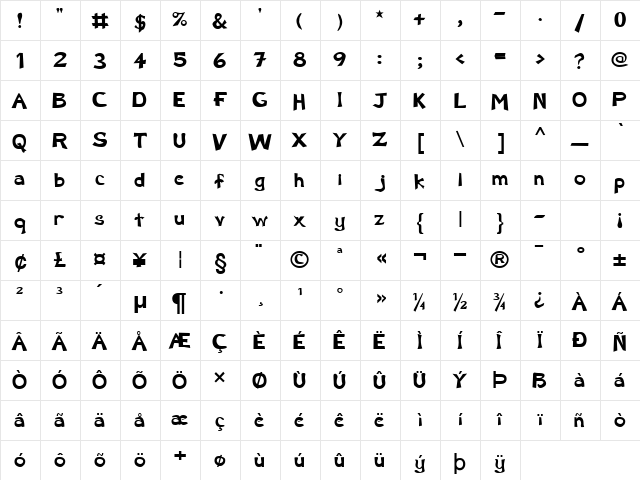
Sarah Normal Font Preview
Sarah Normal
Design Context for Sarah Typeface
Sarah is a composed and adaptable typeface that performs quietly and consistently across a wide range of design contexts.